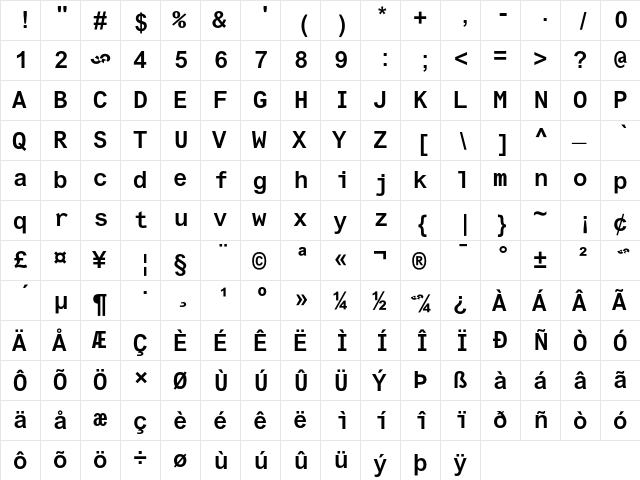
Arial Monospaced MT Bold
Design Context for Arial Monospaced MT Typeface
Arial Monospaced MT uses fixed-width spacing throughout, giving it the structured, systematic character associated with coding environments and technical documentation. The heavy weight commands attention and anchors typographic hierarchies.
Pro Tip: Pair Arial Monospaced MT with a proportional sans for UI contexts where code-style labels and regular body copy need to coexist.